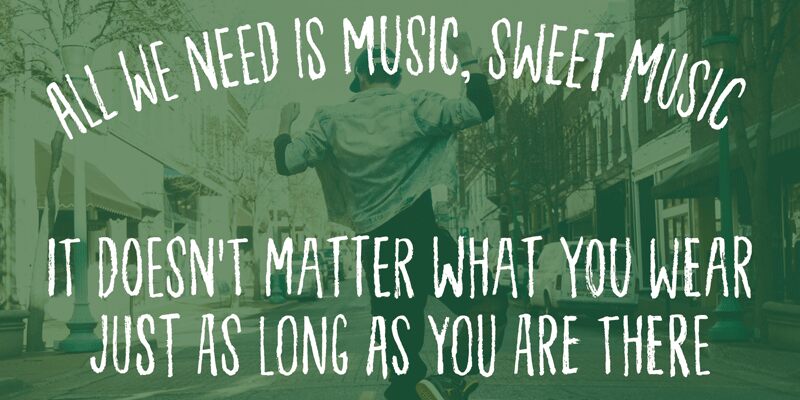
Ordinary Guy is a captivating handwritten font that exudes a delightfully casual charm. With its condensed width and 8 unique variations for each letter, this font brings a dynamic, almost playful element to any design.
The organic, hand-drawn aesthetic lends an authentic, personalized touch, making it an excellent choice for projects seeking an approachable, informal vibe. From branding and packaging to editorial layouts and more, Ordinary Guy's versatility allows it to seamlessly integrate into a diverse array of design applications.
Its multiple language support further expands its versatility, making it a remarkable asset for designers seeking to create visually engaging and globally accessible content.